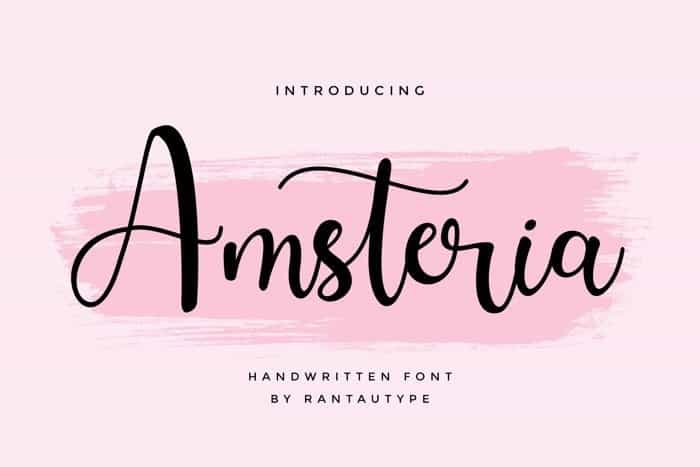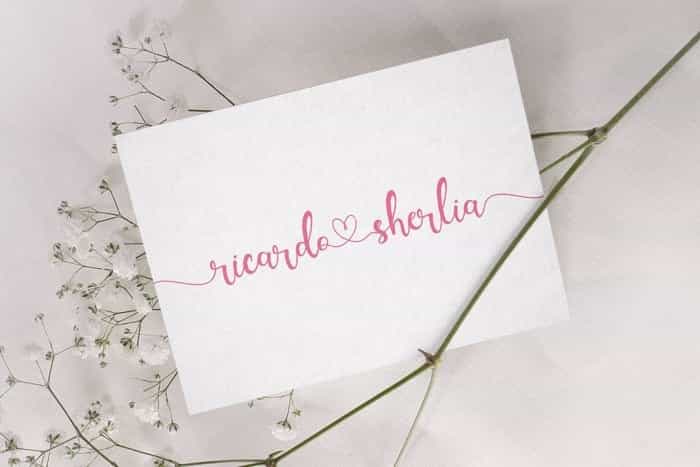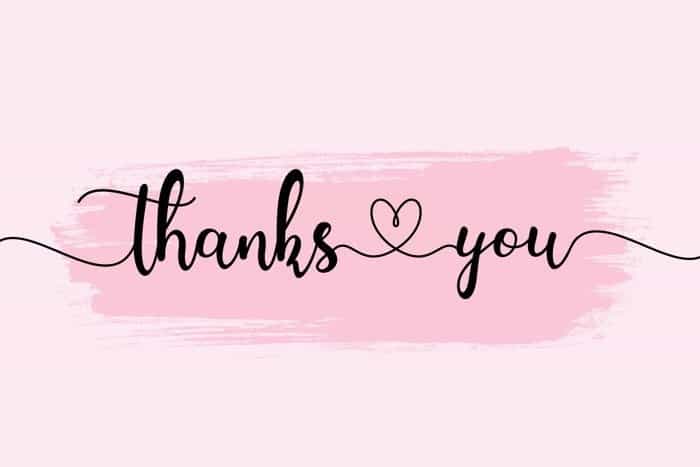
The Amsteria font is a beautiful hand lettering font developed by Rantautype and it is natural and lovely! Thus, each letter is designed by hand to create a beautiful-looking text. This font is great for using in invitations, branding posters and advertising.